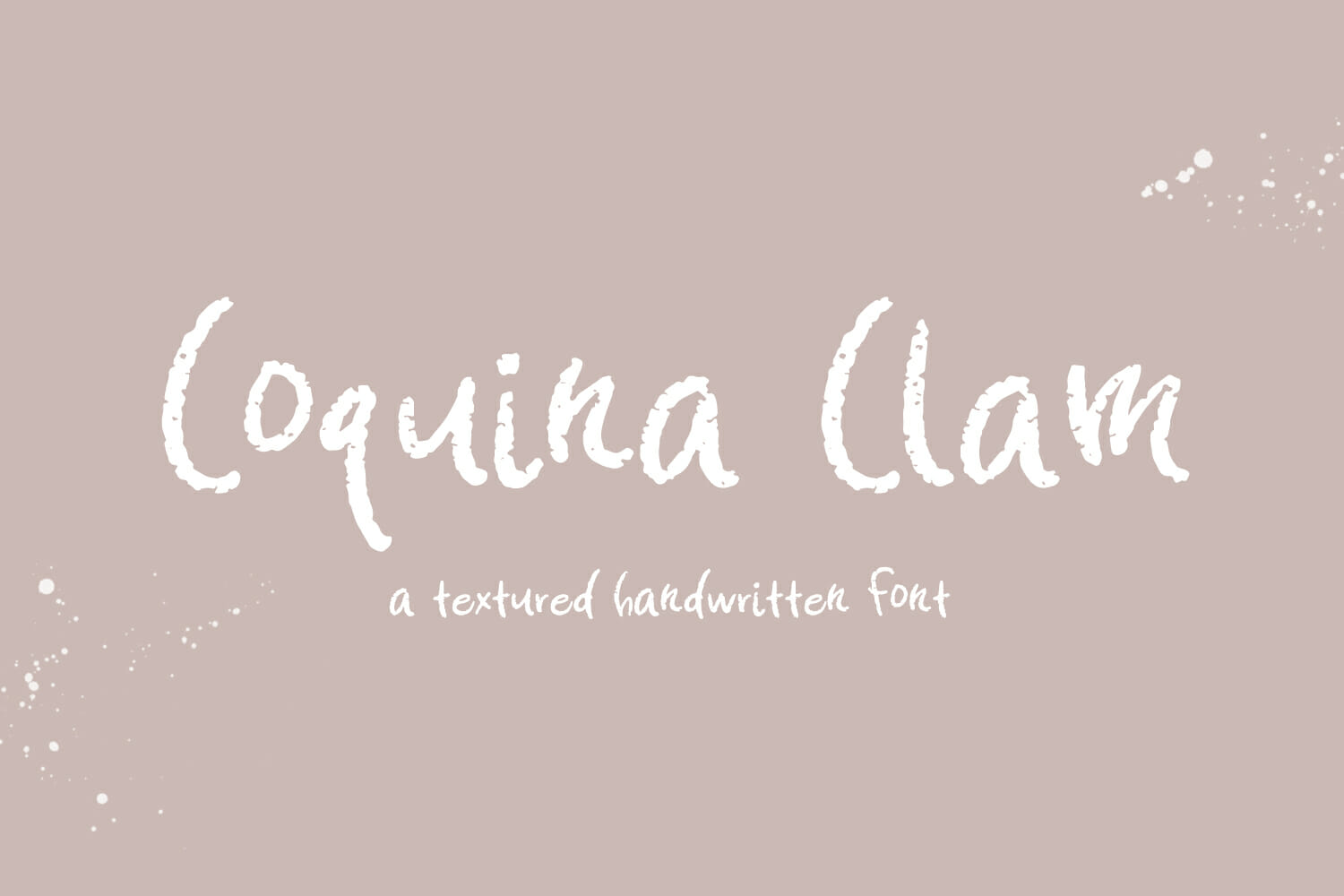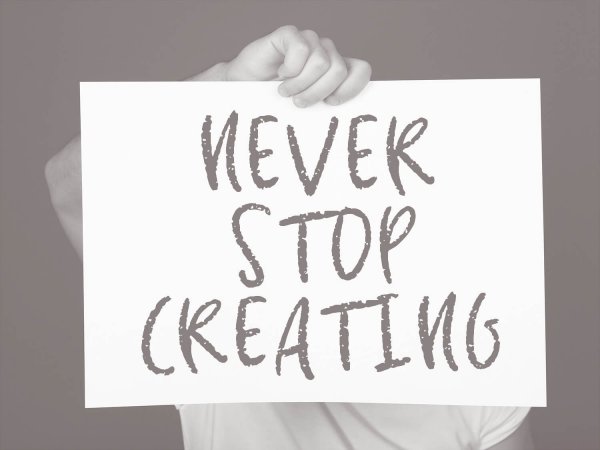
Coquina Clam Hand-lettered Font
My childhood beach days were spent digging in the sand, looking for tiny, colorful coquina clams. Little did I know that it would quite literally be the foundation for something much bigger: Coquina Clam Hand-Lettered Font.
My beach days were spent digging in the sand, looking for coquina clams, which inspired this font.  Coquina Clam Hand-lettered is a cute hand drawn typeface, perfect for a variety of projects.